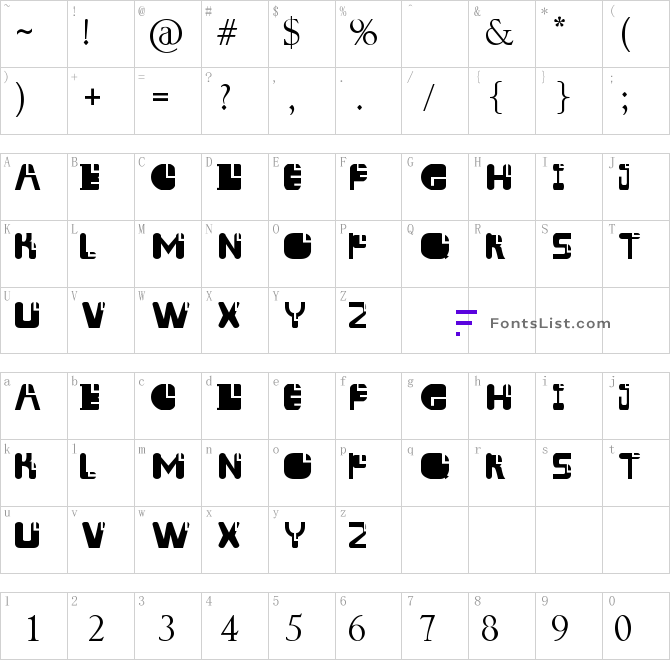
- Font Name:AISSUR
AISSUR.ttf is a very beautiful artistic font, AISSUR.ttf is widely used in the design and printing of various books and pictures,AISSUR.ttf has a strong visual impact,AISSUR.ttf is a commonly used font in newspapers, magazines and books, and is used in posters, e-commerce Poster design, store design, logo design, font design and other fields.AISSUR.